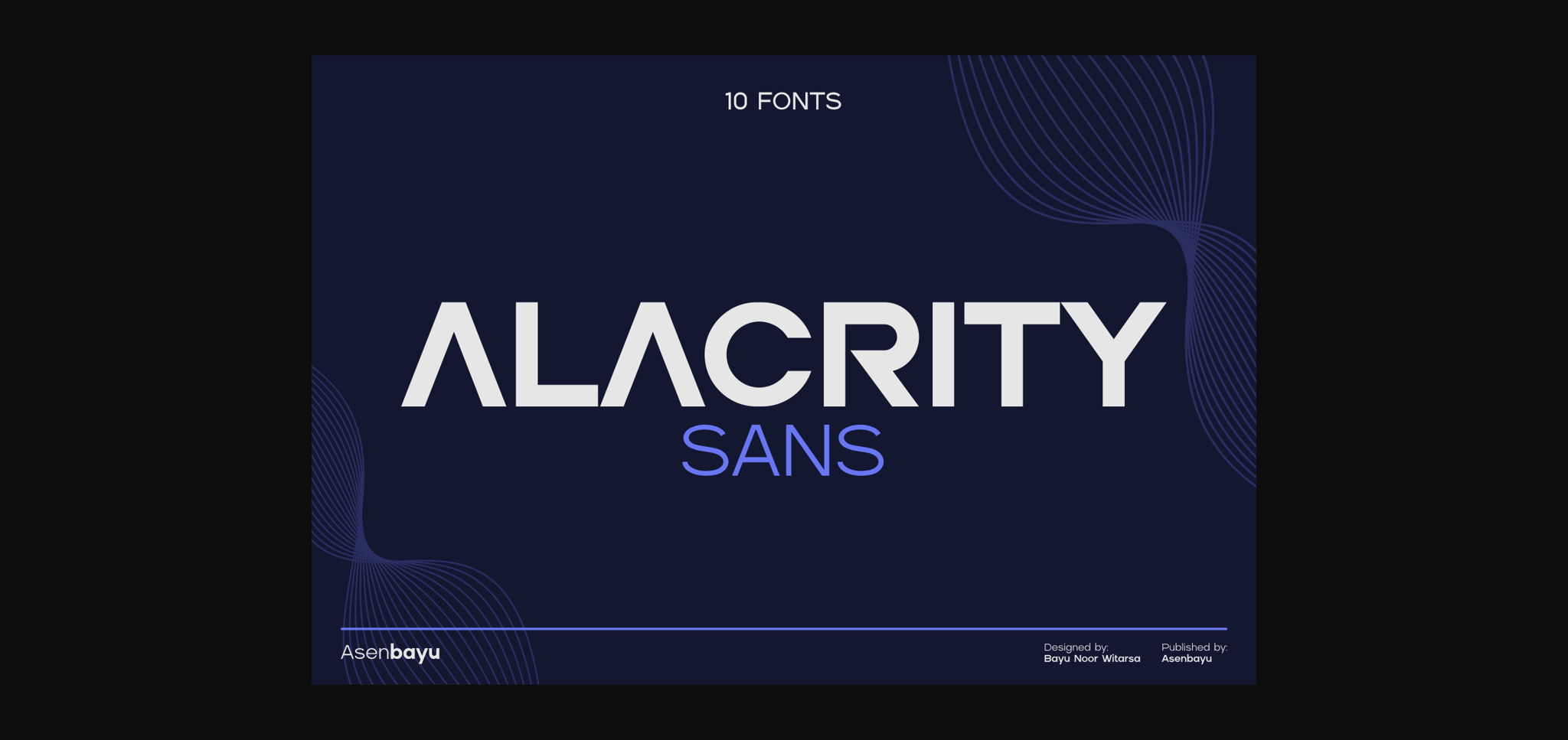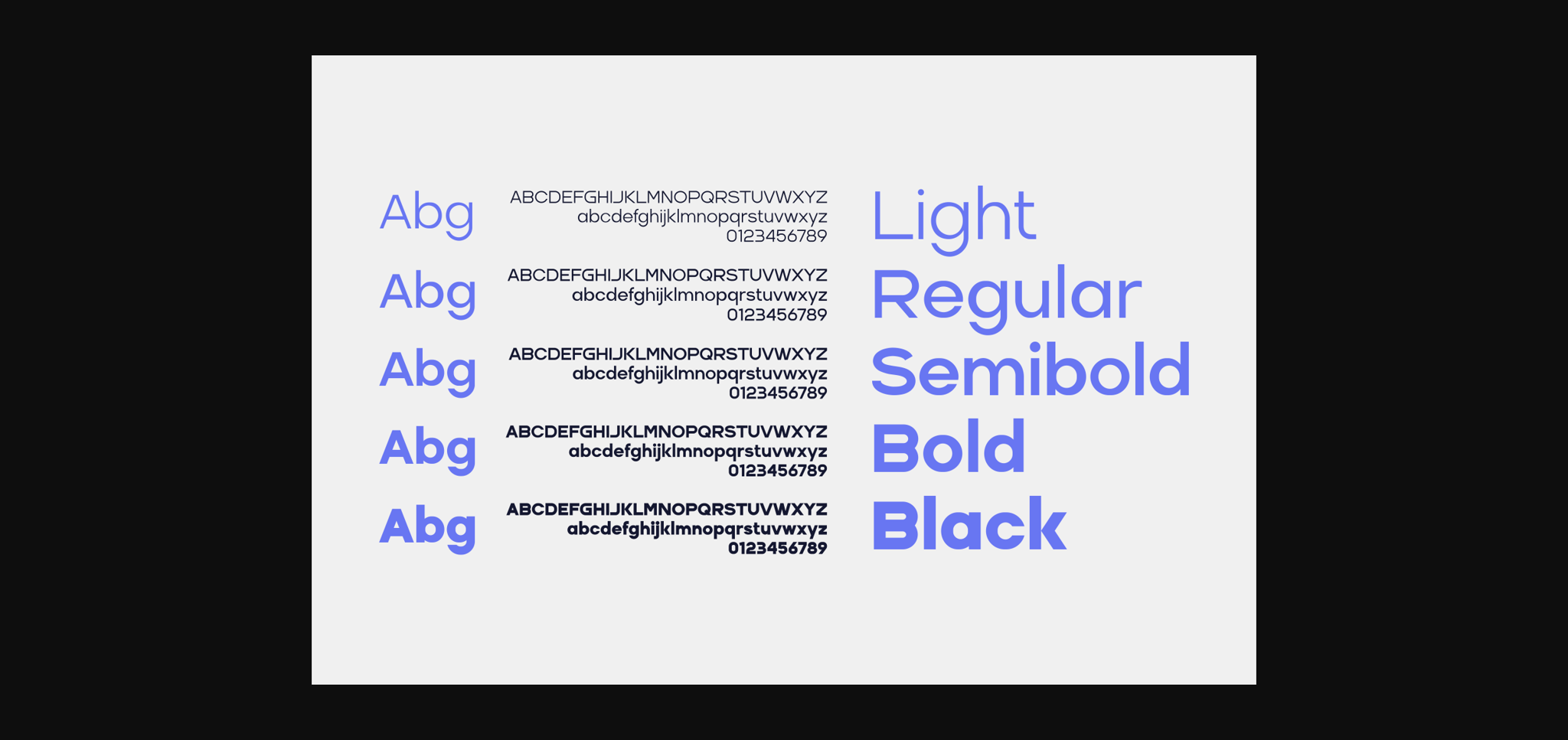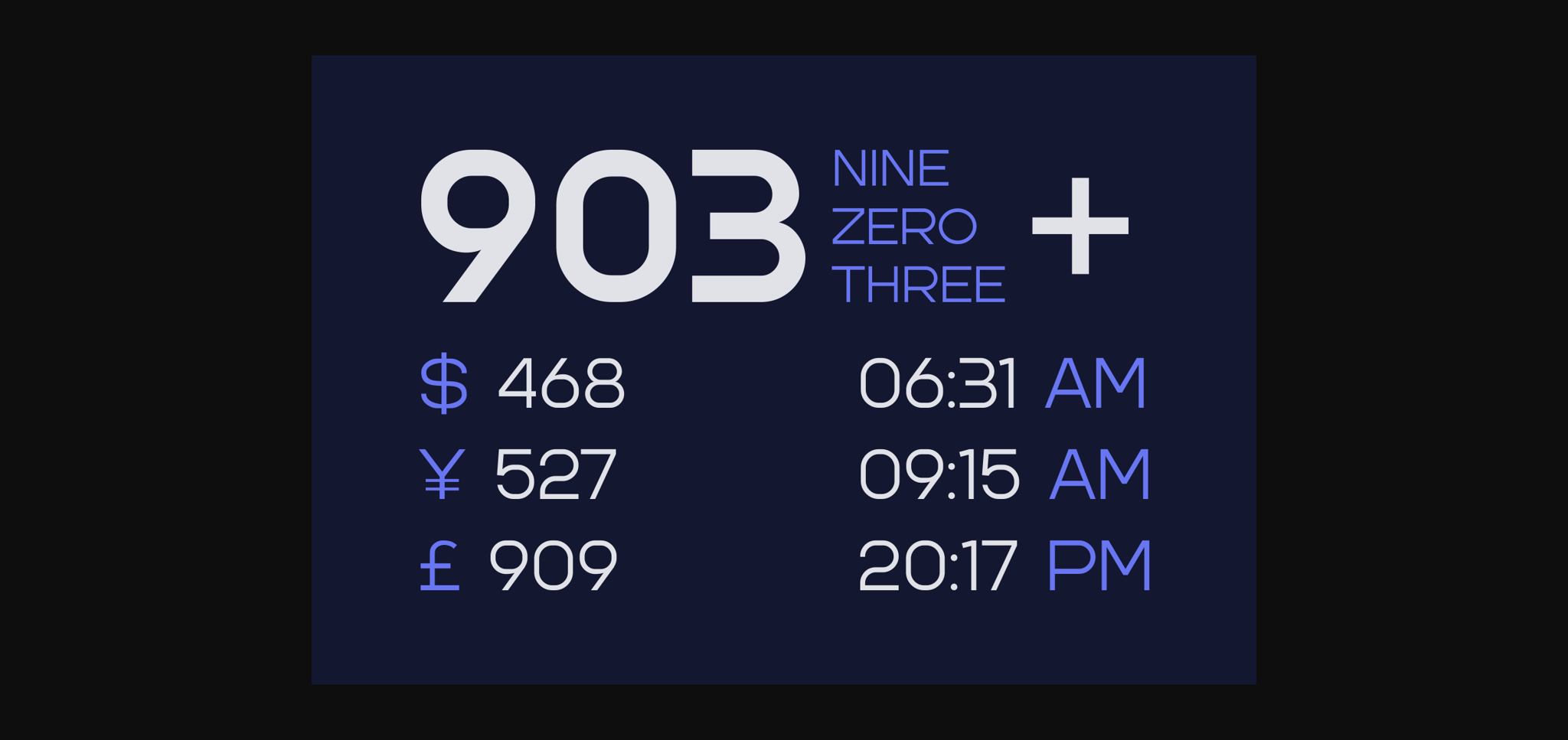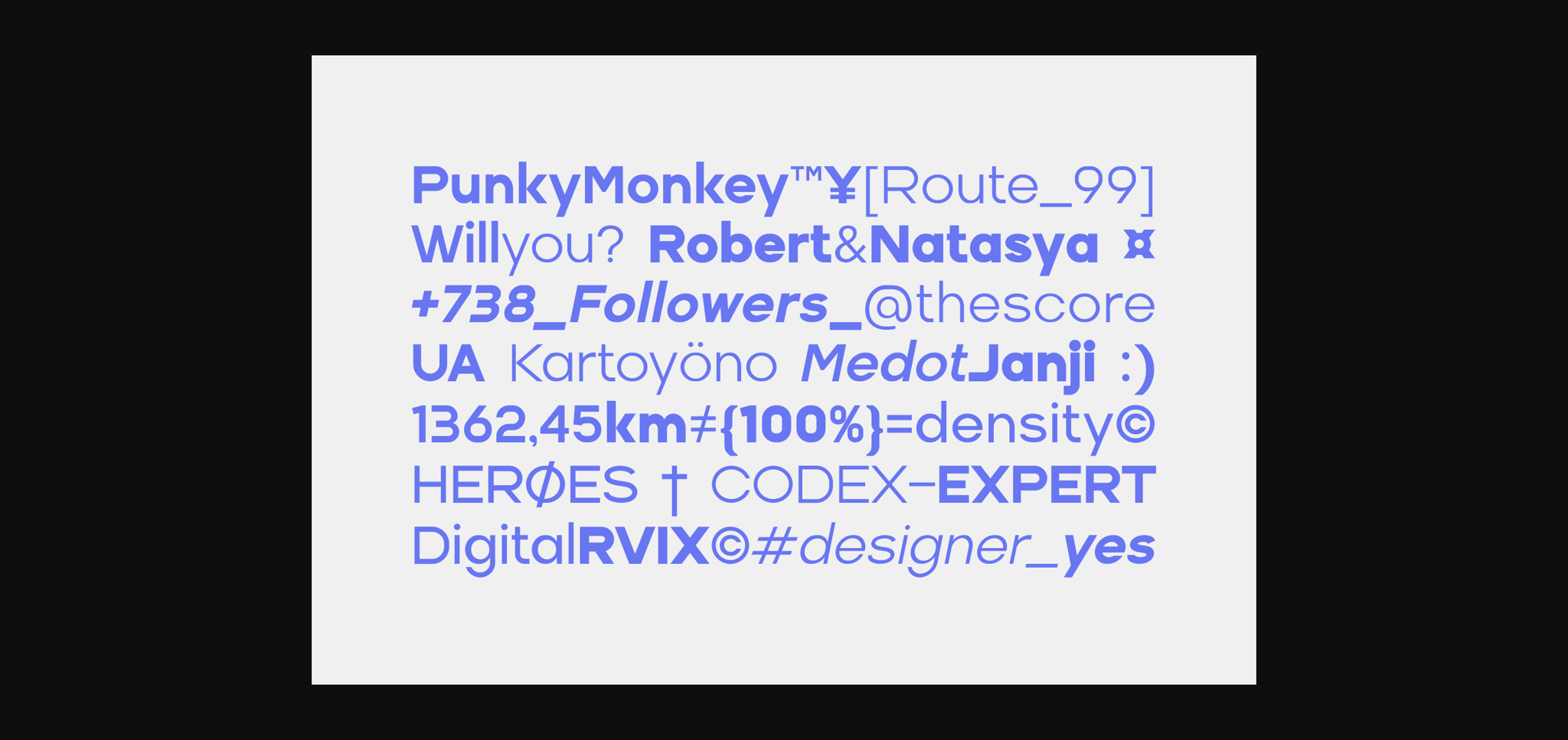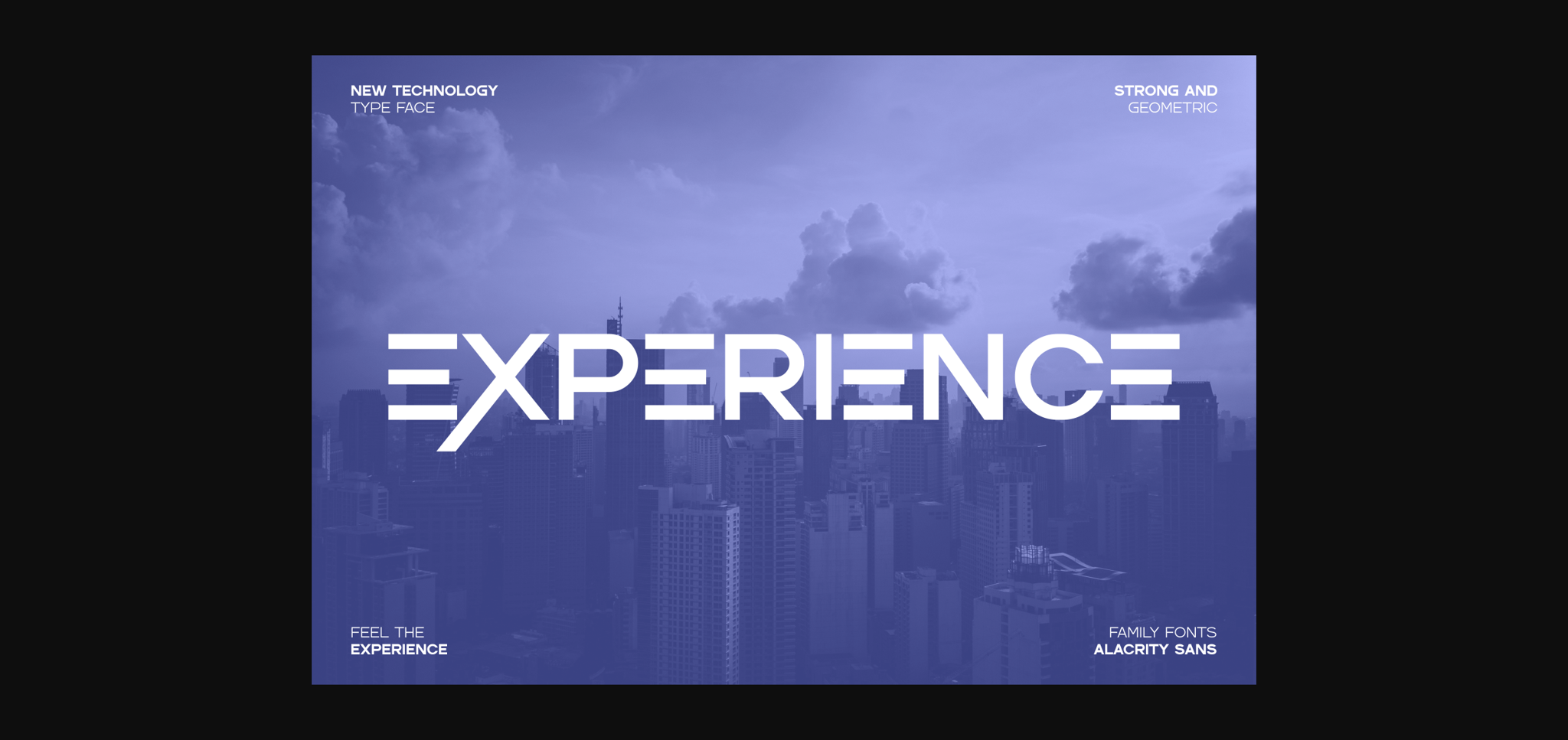
About Alacrity Sans Font
Alacrity Sans is a versatile sans serif font family with sophisticated geometric shapes. You can use it in modern, clean, and professional designs. These fonts are perfect for your various projects such as logo and brand identity, journals, business cards, web, stationary, display, sports products, technology, and more. Feel the experience with the new technology typeface!